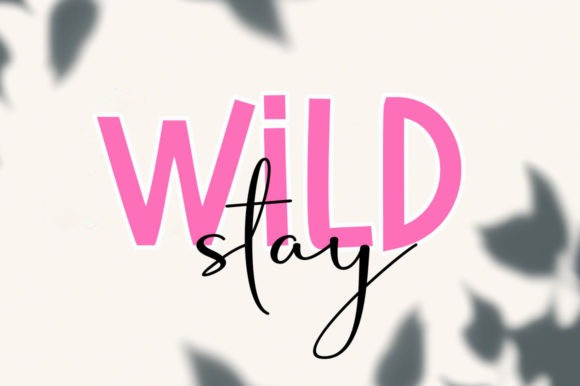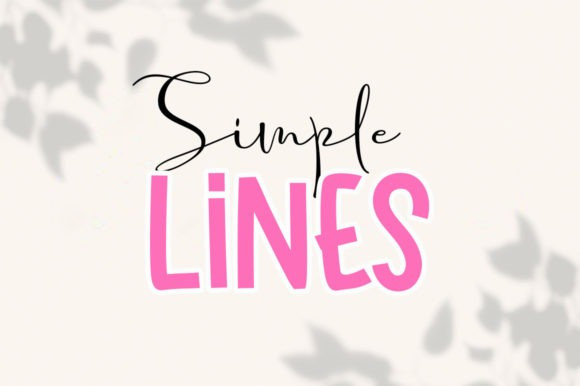
Sweet Room Display Font
Sweet Room is a cute and stylish handwritten font. It has beautiful and well balanced characters and as a result, it matches a wide pool of designs.